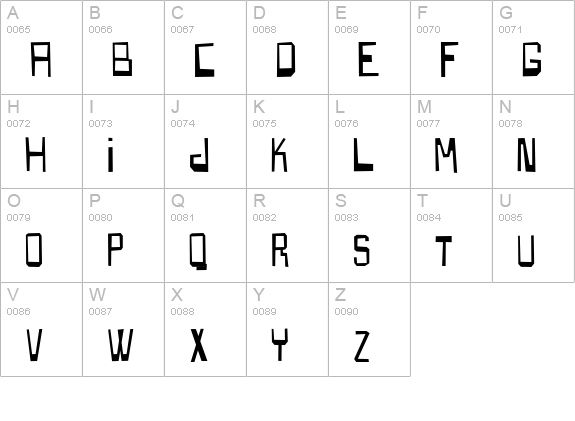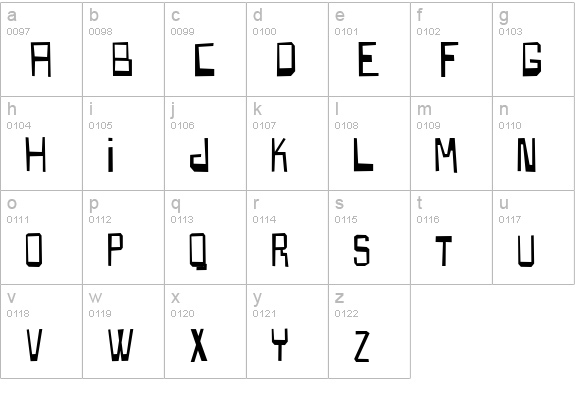
BoxspringA Font Details
BoxspringA font is a modern and stylish typeface that exudes elegance and sophistication. With its clean lines and contemporary look, this font is perfect for a wide range of design projects, from branding to editorial design. The sleek and versatile design of BoxspringA font makes it a great choice for both headings and body text, adding a touch of sophistication to any project. The best part? BoxspringA font is available for free download at FontsMarket.com. This means you can easily access this stunning font and use it in your projects without having to worry about any additional costs. Whether you're a professional designer or a hobbyist looking to add a touch of style to your work, BoxspringA font is the perfect choice for all your typographic needs. Don't miss out on the opportunity to enhance your designs with the sleek and modern look of BoxspringA font. Download it for free today and take your projects to the next level!